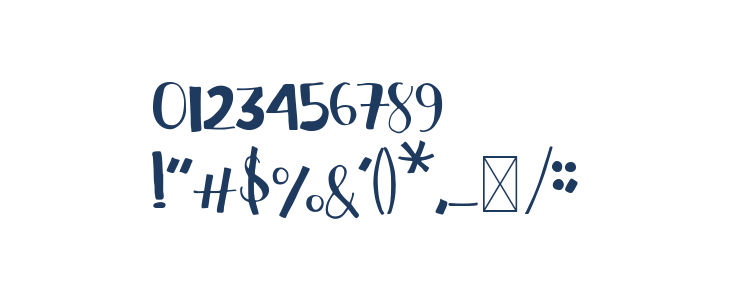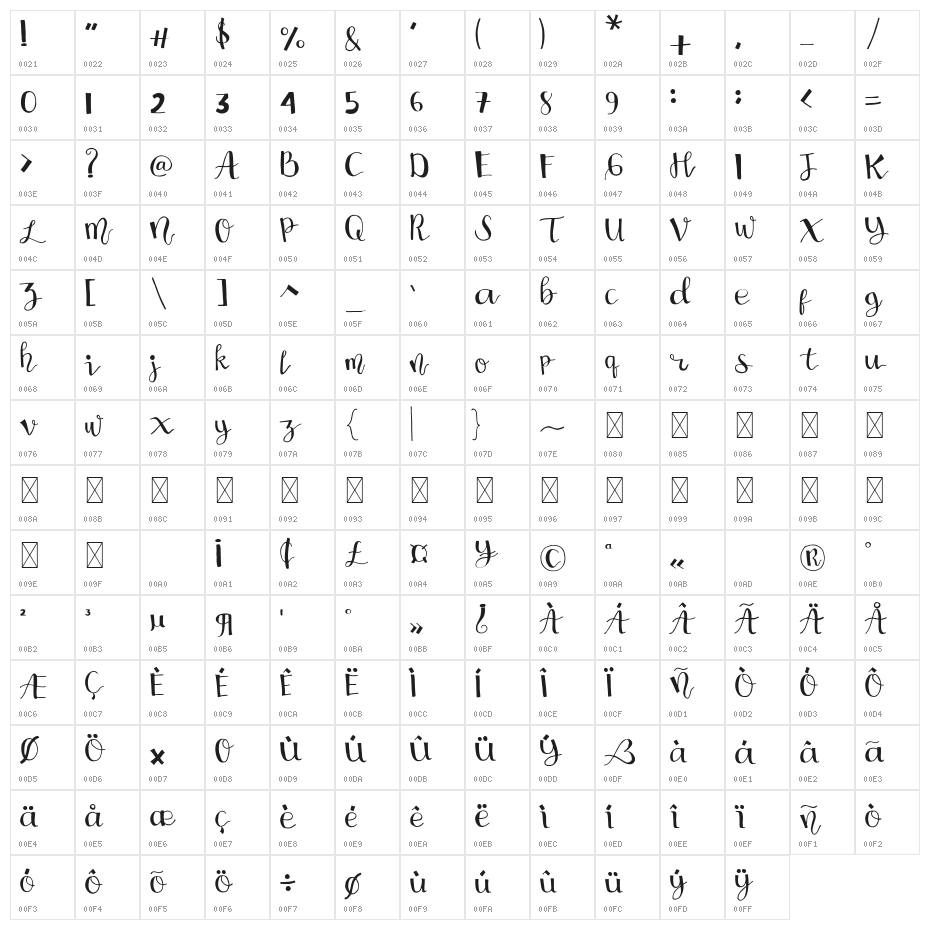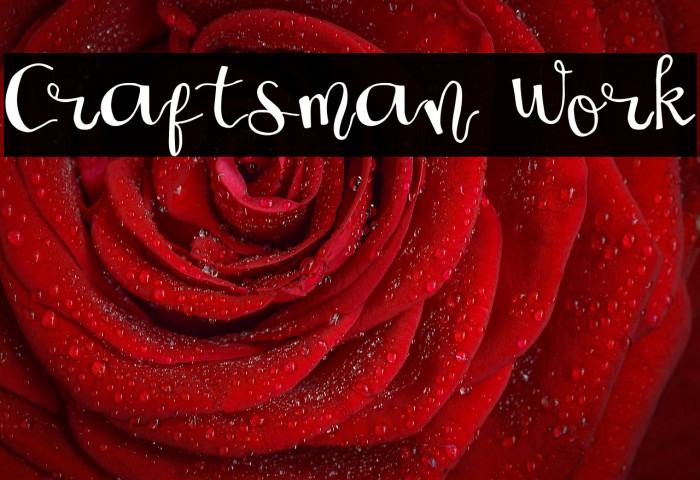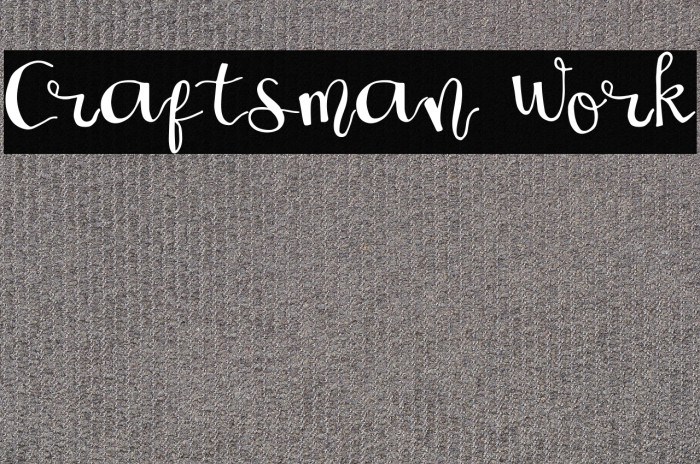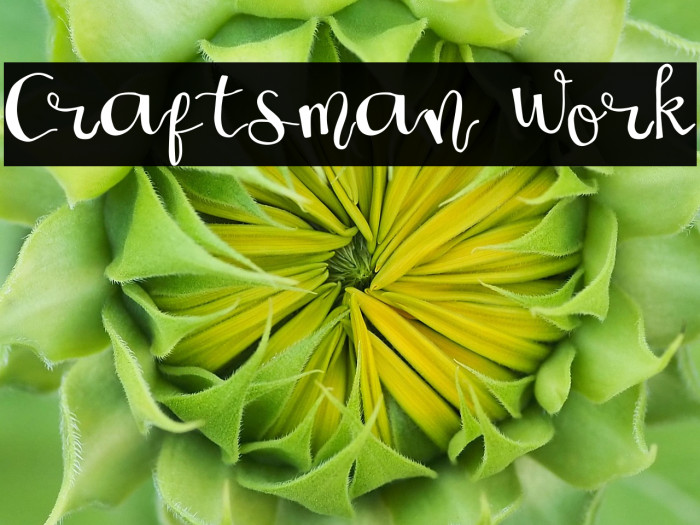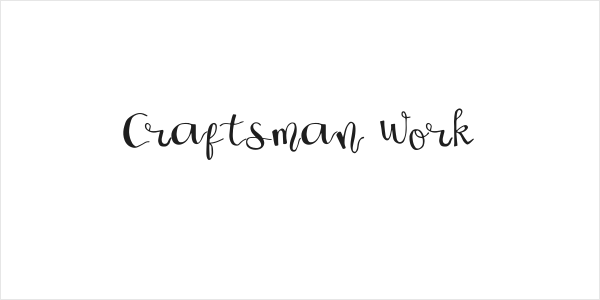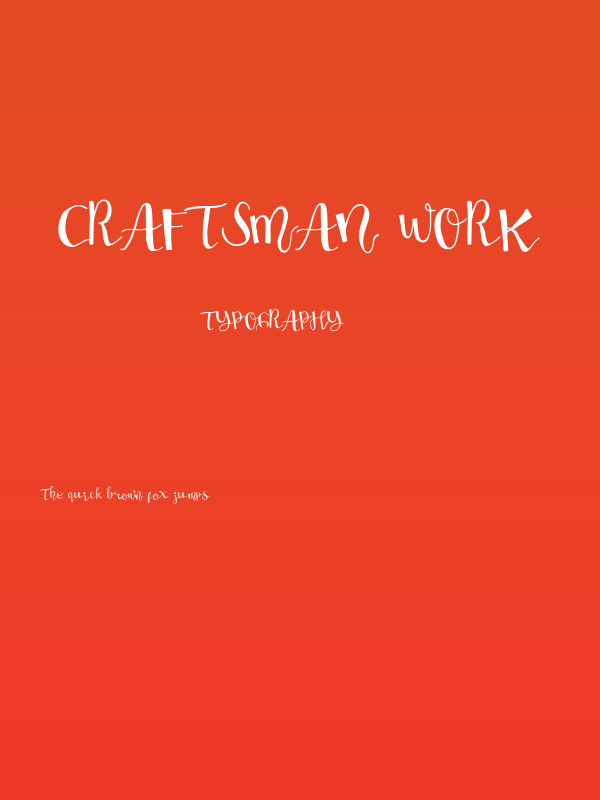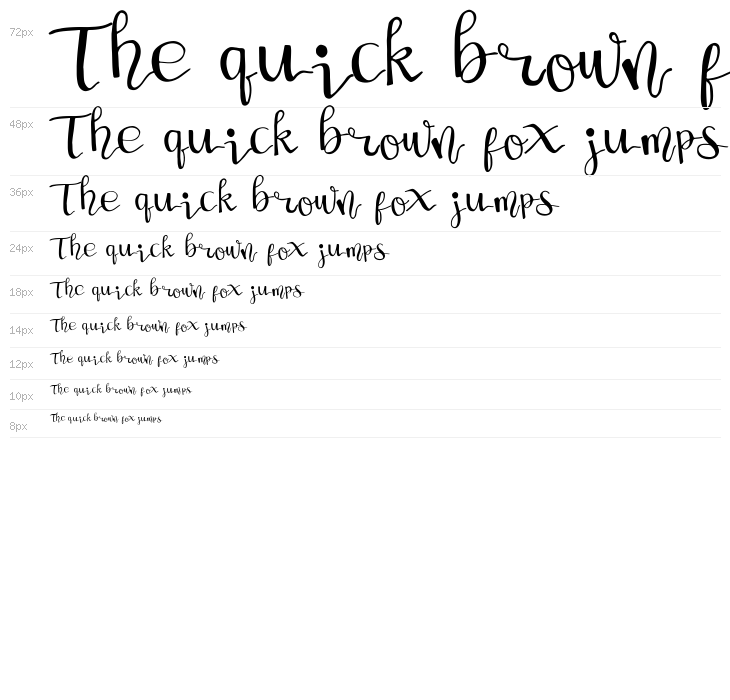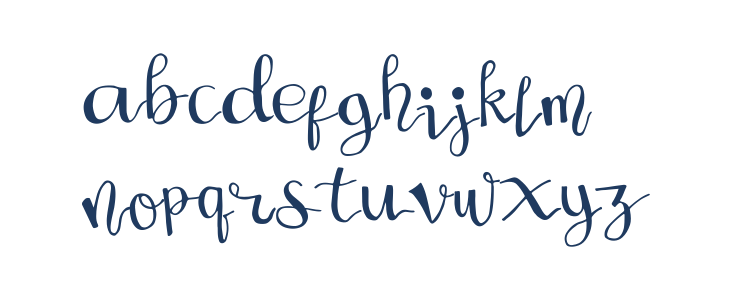
Craftsman Work Font
Craftsman Work Description
This font features a playful and artistic script style, characterized by its fluid and dynamic strokes. The uppercase letters exhibit a bold presence with varying thickness, while the lowercase letters maintain a consistent flow with elegant curves. The numerals are bold and slightly whimsical, complementing the overall style. Special characters are creatively designed, adding a unique flair. This font's hand-drawn appearance gives it a personal and approachable feel, making it suitable for creative and informal applications.